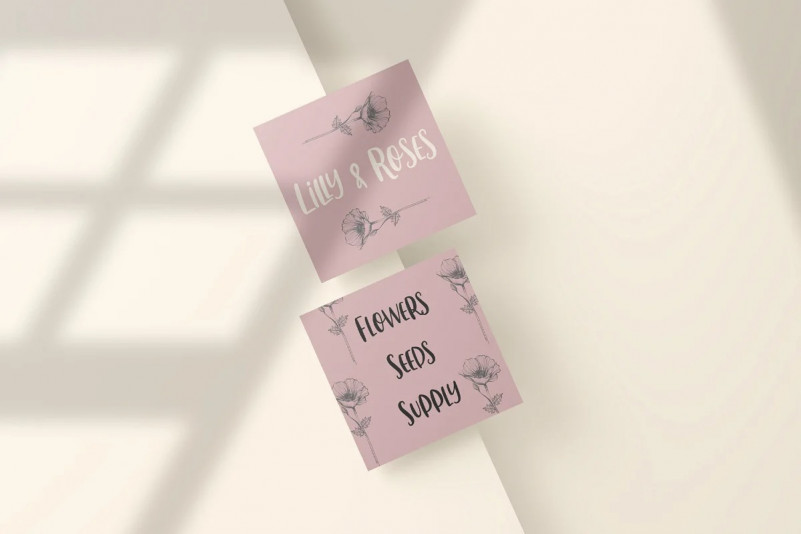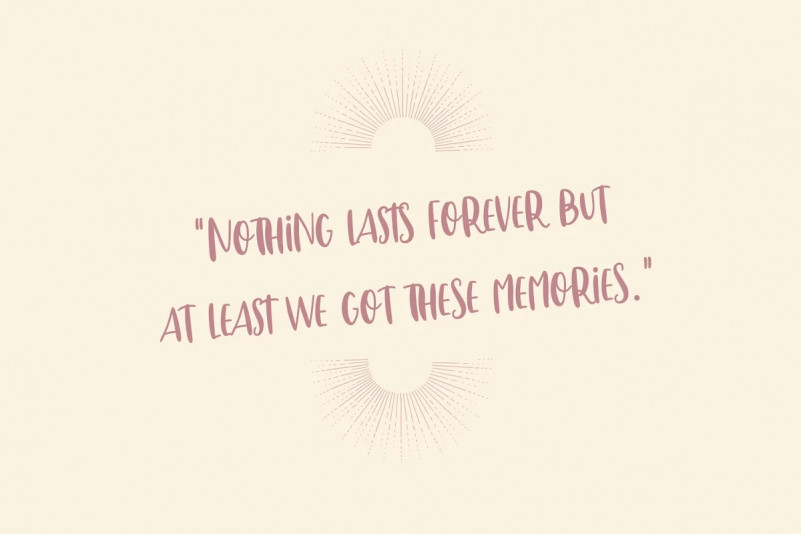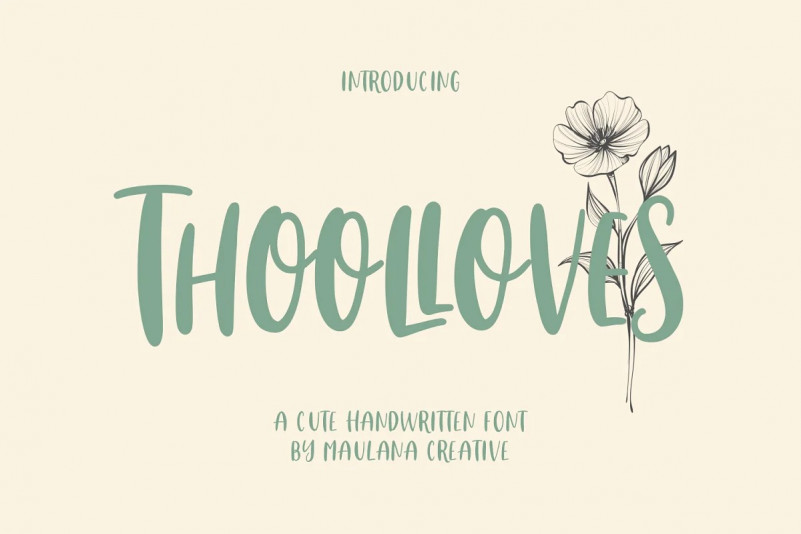
Thoolloves Handcrafted Font
Thoolloves is a Cute modern handcrafted font. It’s a clean store with high contrast line. It readable in short text. Thoolloves includes opentype features Ligatures. It support multilingual more than 100+ language. This font is good for logo design, Movie Titles, Books Titles and any awesome project you create. Make a stunning work with Thooloves handwriting font.